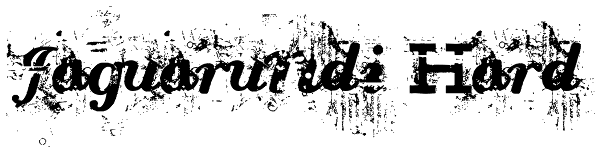
Jaguarundi
Inspired by the jaguarundi, a species of cat living in Central and South America. Unfortunately, hunting and development can wipe out this animal...
Jaguarundi Hard
Jaguarundi Hard Font